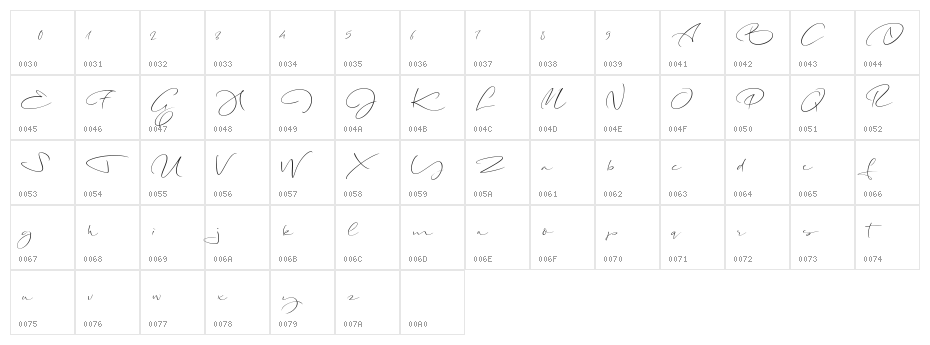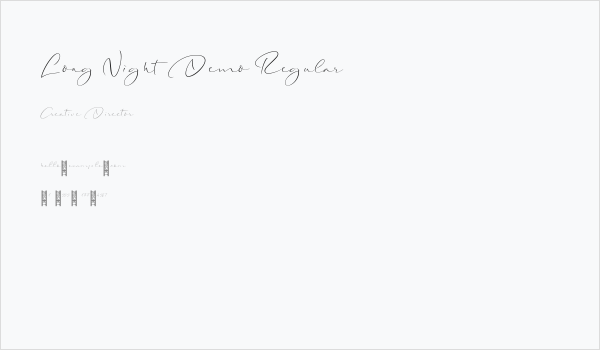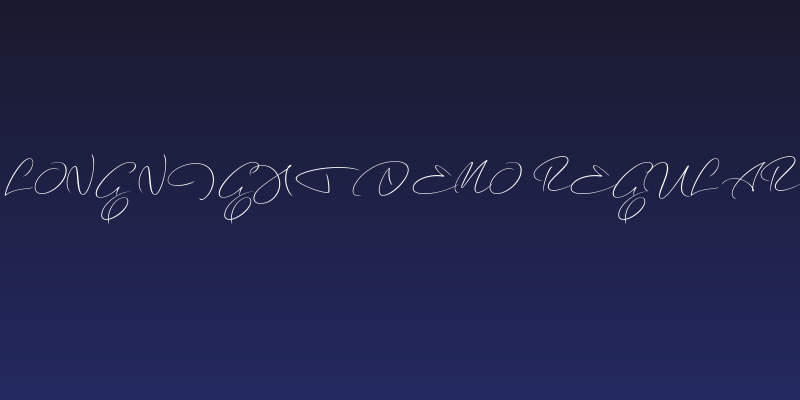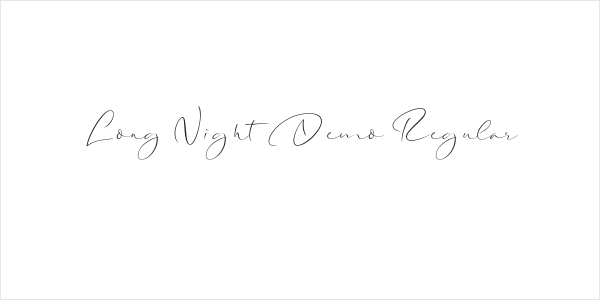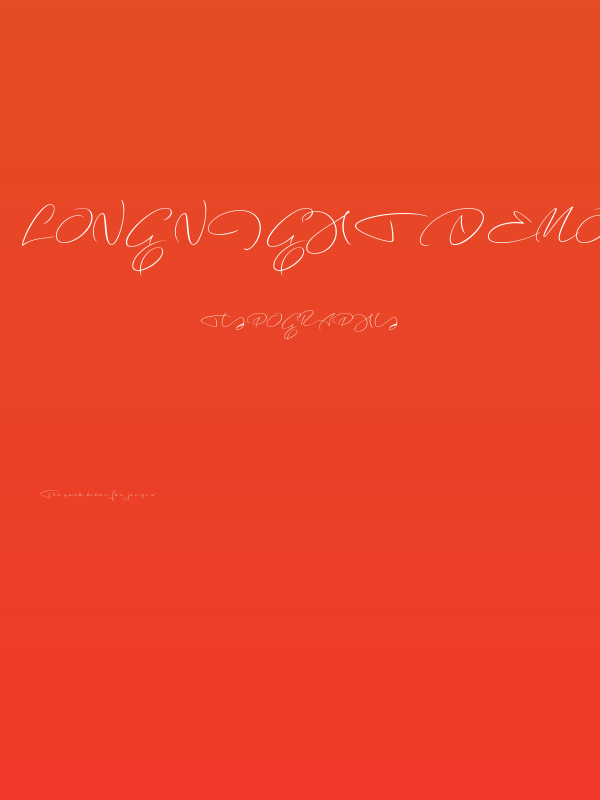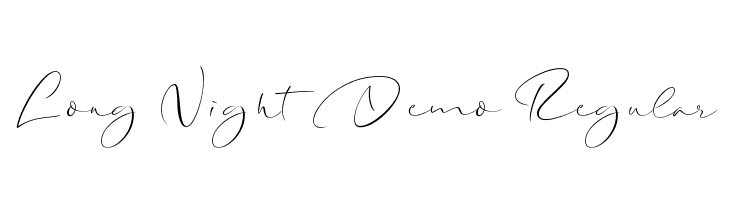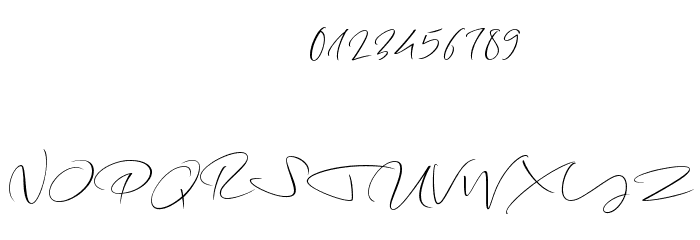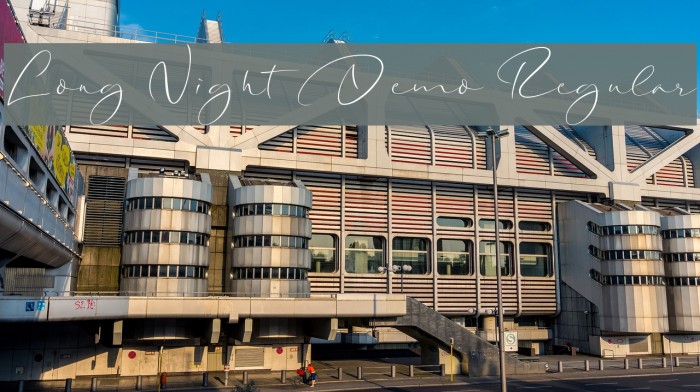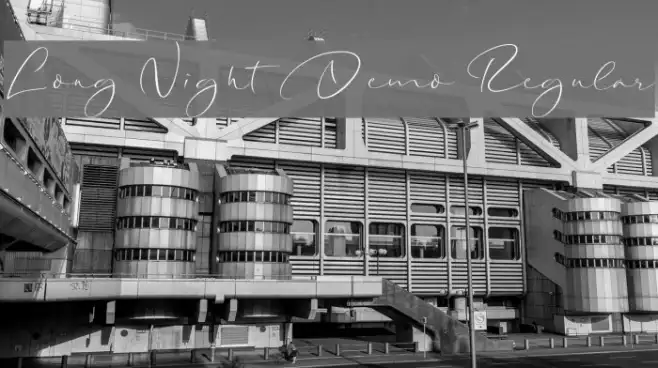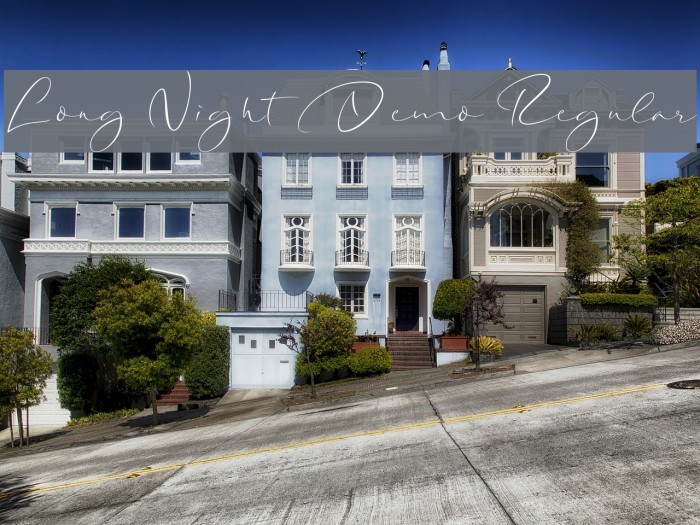
Long Night Demo Regular Font
Long Night Demo Regular Description
This font features an elegant and flowing script style, characterized by its delicate and intricate letterforms. The strokes are thin and graceful, with a natural, hand-drawn appearance that gives it a sophisticated and artistic flair. The uppercase letters are particularly ornate, with sweeping curves and loops that add a touch of drama and elegance. The lowercase letters maintain a consistent style, with smooth connections and a fluid motion that enhances readability while preserving the decorative nature. Numbers and special characters are designed to match the overall aesthetic, ensuring a cohesive look across all text elements. This font is ideal for projects that require a personal and artistic touch, such as invitations, greeting cards, and branding materials.
| Use Case | Invitations, Greeting cards, Branding |
| Proposed Projects | Ideal for wedding invitations, greeting cards, personal branding, and artistic projects. |